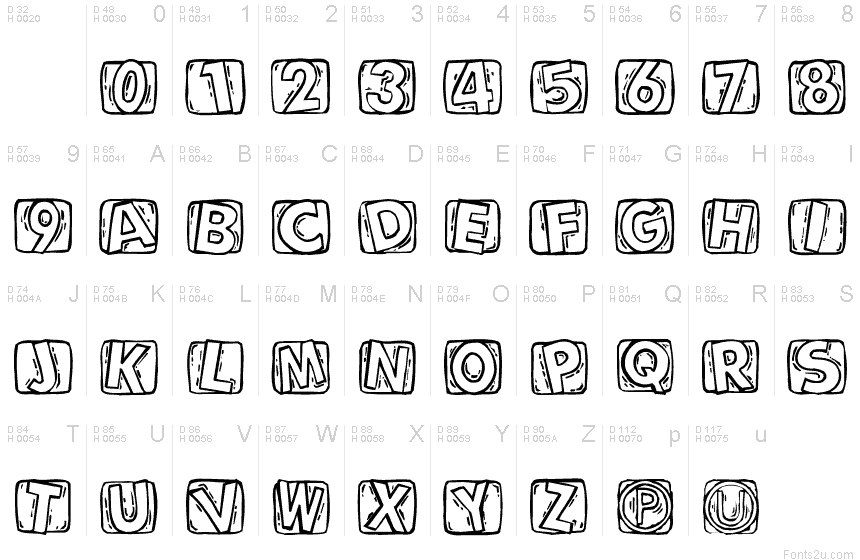
WoodcuttedCaps
Woodcutted Caps by M. Klein - Fonteria is a free woodcut-style caps font with a scruffy, hand-cut cartoon spirit. The letters look hewn from a block, with uneven outlines, blunt angles, and a rough framed silhouette that makes the font feel closer to stamped sign lettering or a comic title card than to neat display type.
That rough-hewn energy suits poster headlines, zine covers, children's book titles, camp flyers, game logos, and short packaging callouts where a free font can bring in a handmade, slightly mischievous edge. It works best in brief bursts, because the boxed, carved look gives the caps a strong badge-like presence.